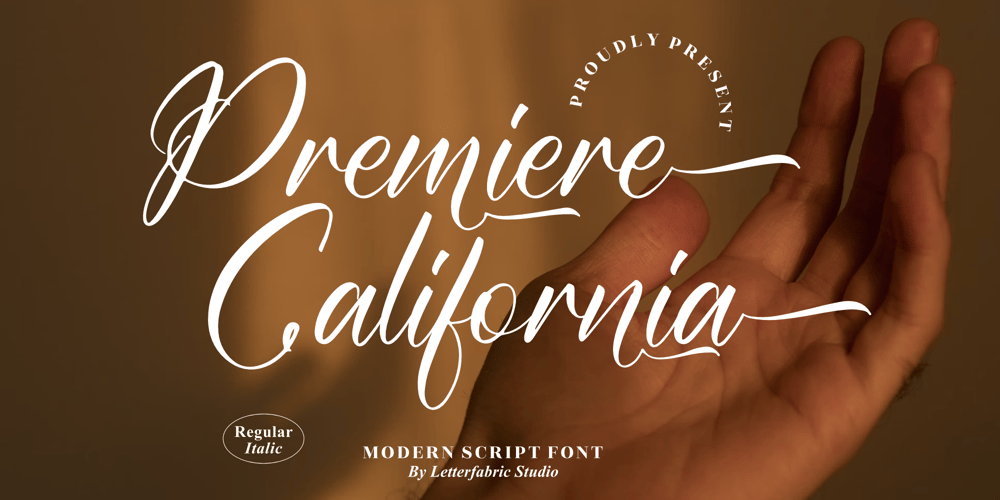
Premiere California Font Family was designed by Heru Utama Putra and published by Letterena Studios. Premiere California contains 2 styles and family package options. Premiere California is a lovely and timeless handwritten font. It is the best choice for creating eye catching logos, branding and quotes. This font is PUA encoded which means you can access all of the glyphs and swashes with ease!